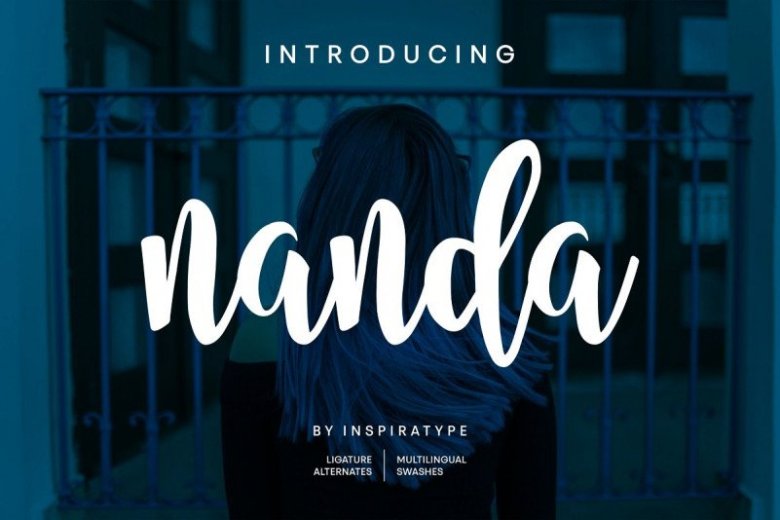
Nanda Bold Script Font
This is a bold script typeface which is simple yet casual. Made by hand written with many opentype features that you will like. Introducing Nanda Font. Nanda Bold Script Font is a font display that is made by hand, inspired by classic posters. Comes with uppercase, lowercase, numerals, punctuations and so many variations on each character include OpenType alternates, common ligatures and also additional swash to let you customize your designs. Perfect to use for Logotype, Letterhead, Poster, Apparel Design, Label and etc.